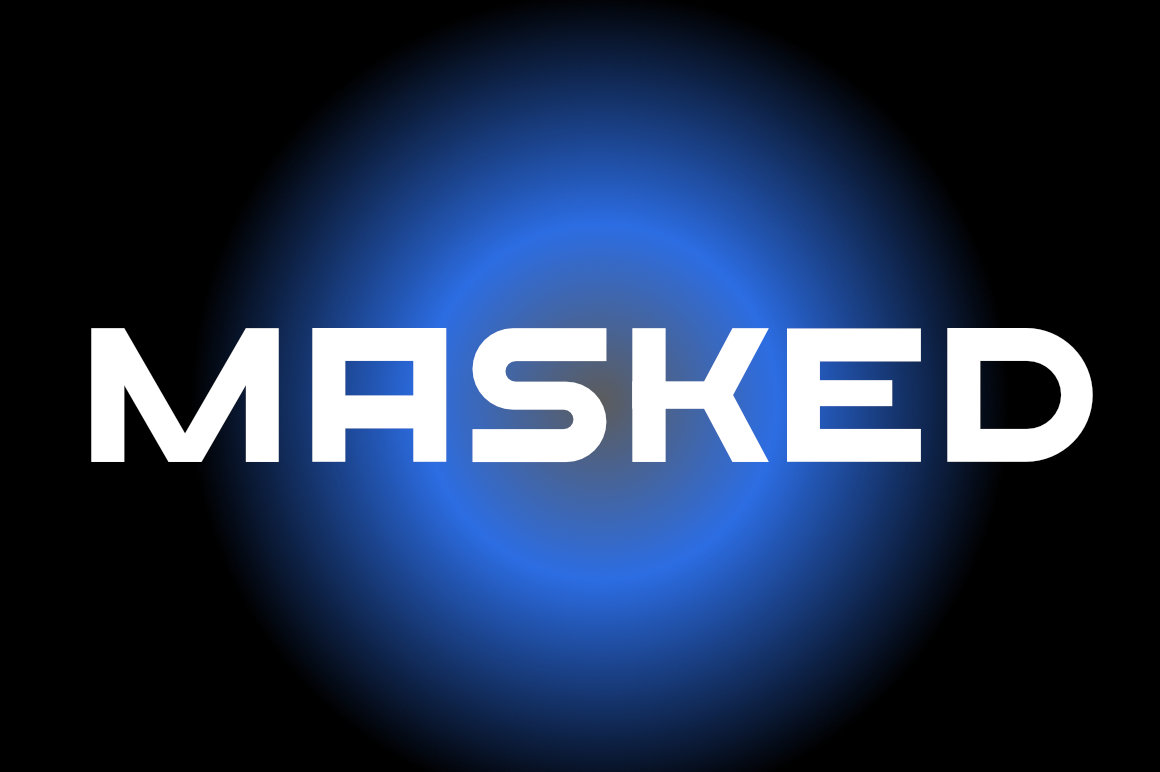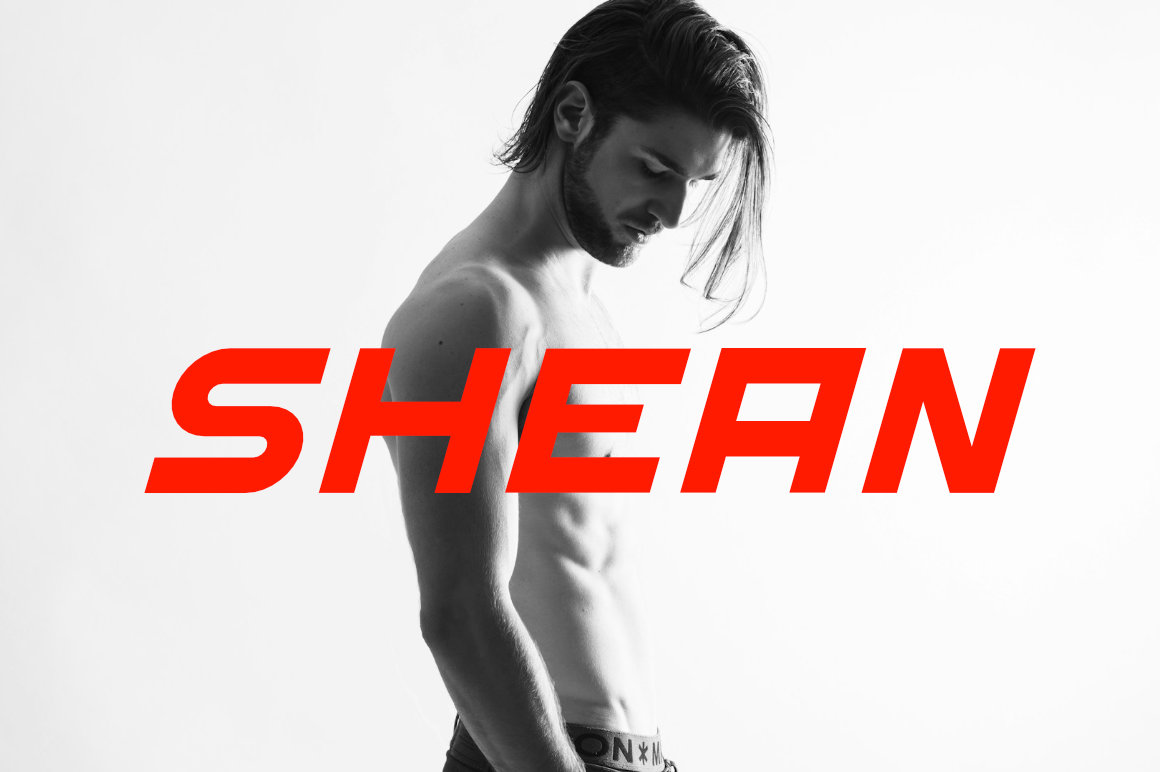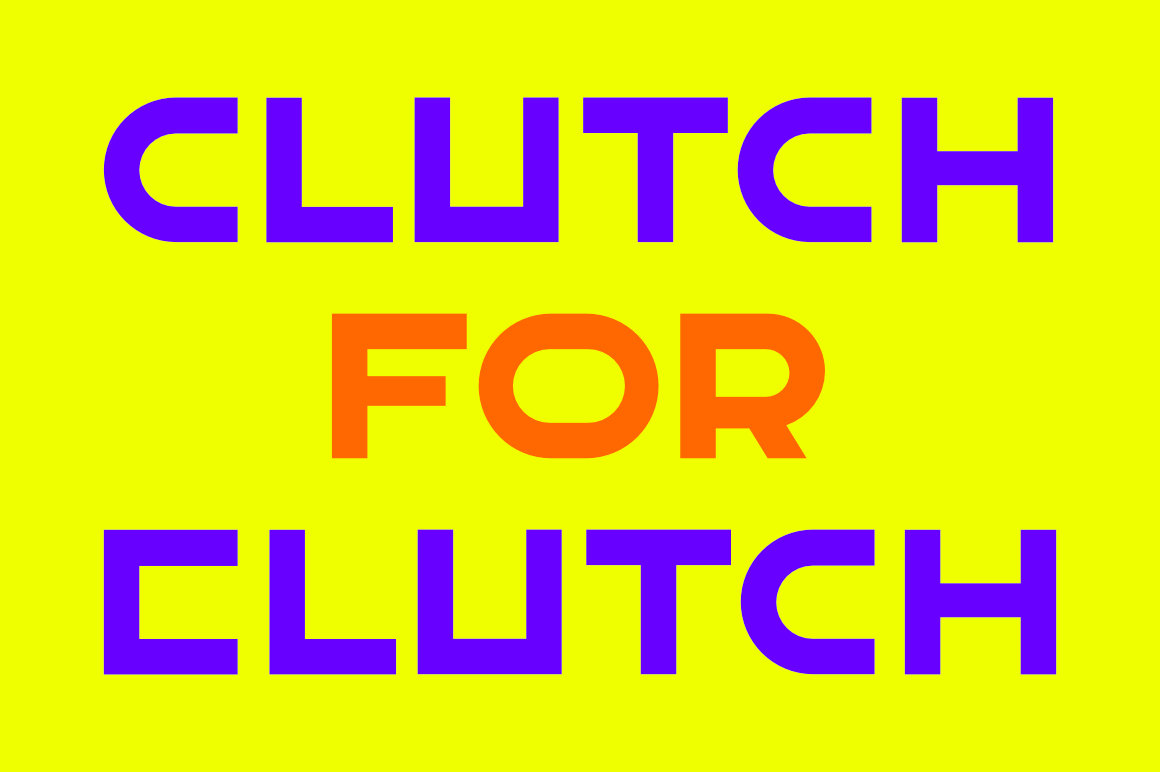
AEOGO PXLTD NEXT digital tech Font
Born from the pulse of innovation, the tech font was designed to reflect the rhythm of modern life. Its sharp edges and clean lines mirror the precision of code, while its bold structure captures the essence of digital transformation